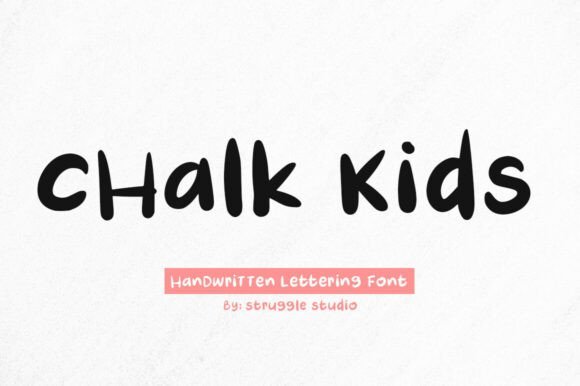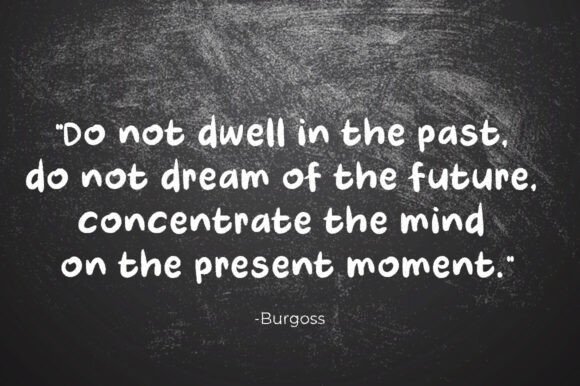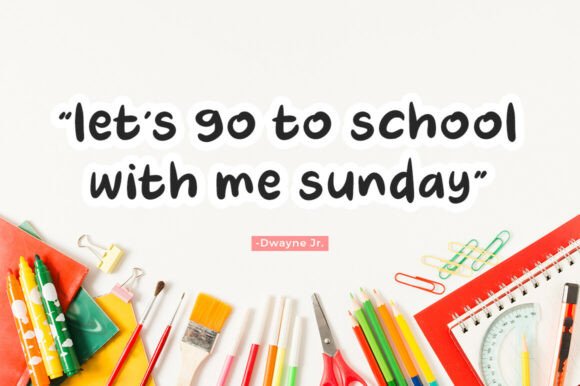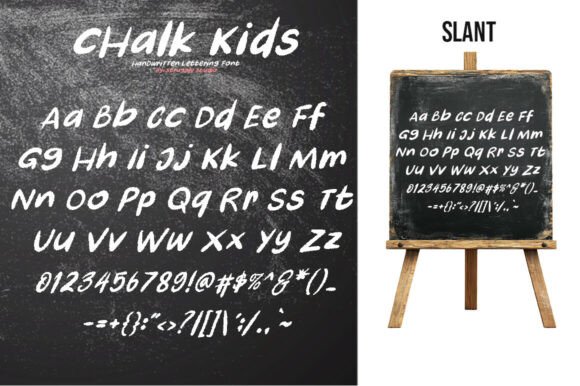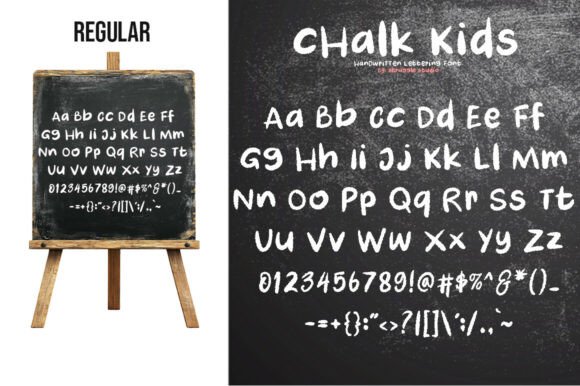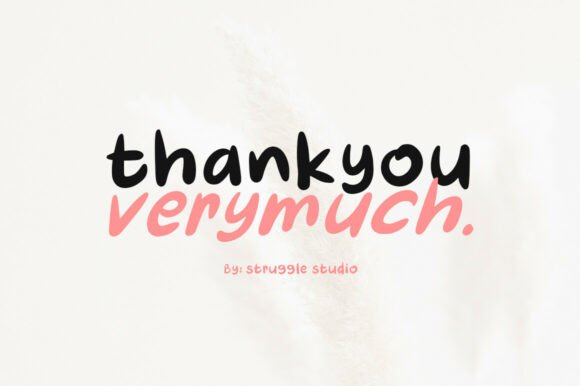
Have you ever been brainstorming a creative project and suddenly, a burst of inspiration hits you? The ideas start flowing, and you can’t wait to bring your vision to life. That’s exactly what happened to many designers when they discovered the Chalk Kids Font – a playful handwritten lettering font that’s sure to put a smile on your face.
Designed to evoke a sense of childhood wonder, Chalk Kids Font is the perfect addition to any project that needs a cheerful and friendly touch. Whether you’re working on a children’s book, a logo, or a social media campaign, this font is sure to add a unique and eye-catching element to your design. For designers, Chalk Kids Font is a valuable asset that can help bring a personal touch to their work and set them apart from the crowd.
Key Features of Chalk Kids Font
- Size: The font is available in a single weight, making it suitable for a wide range of applications.
- Unique Characteristics: The Chalk Kids Font features a playful, childlike aesthetic with bold lines and rounded edges.
- X-Height: The font has a relatively high x-height, making it easy to read and recognize.
- Character Set: The font includes a comprehensive character set, including Latin, Cyrillic, and Greek alphabets.
Chalk Kids Font Review
Chalk Kids Font has a certain charm to it. ✨ The quirky, playful feel is perfect for illustrations, children’s books, or any project that needs a lighthearted tone. The font is well-suited for digital media, and its vector format makes it easy to scale and manipulate. ✨ The font’s unique letterforms add a touch of whimsy, making it stand out from more generic sans-serif fonts.
However, there are some limitations to consider. ⚠️ The font’s irregular shapes can make it difficult to read for longer blocks of text. Additionally, the font’s consistency can be inconsistent at times, which may require extra attention from the designer to ensure proper spacing and alignment.
Here are some specific pros and cons:
- Perfect for illustrations, children’s books, or lighthearted projects ✨
- Well-suited for digital media and easy to scale/manipulate ✨
- Unique letterforms add a touch of whimsy
- Difficult to read for longer blocks of text ⚠️
- Consistency can be inconsistent at times ⚠️
Overall, Chalk Kids Font is a fun and quirky addition to any design project. While it may not be the best choice for longer blocks of text, its unique charm and versatility make it a great option for the right project.
Chalk Kids Font is ideal for creating playful and educational designs such as:
– Children’s book covers
– School posters
– Educational infographics
– Party invitations
– Summer camps designs
To get the most out of Chalk Kids Font, try combining it with other playful fonts or using it in conjunction with colorful illustrations and graphics. You can also experiment with different font sizes and styles to create a unique and eye-catching design.